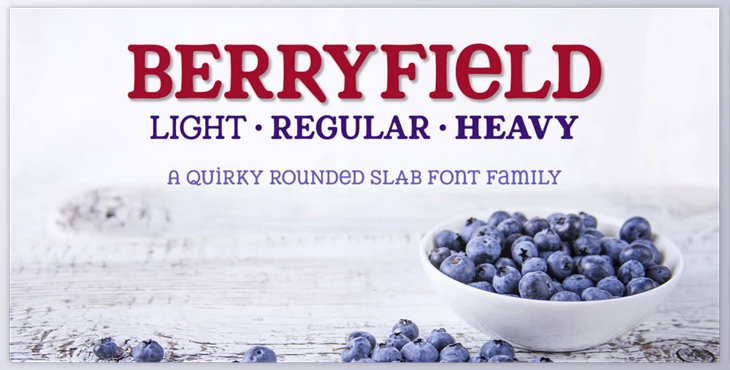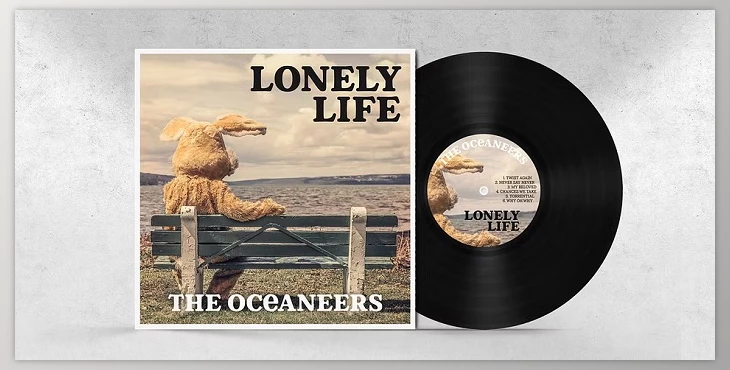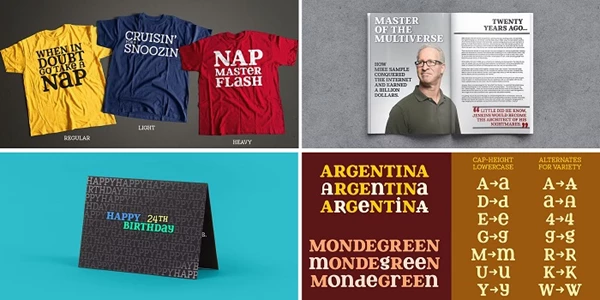
The Berryfield Font Family – 3 Fonts is a collection of three fonts created from geometric shapes, inspired by classic serif fonts like Cooper, Korinna, and Goudy for the uppercase, and unicase fonts like Pupcat and Pharmacy for the lowercase.
The font family includes over 520 characters, with 300+ additional Latin characters for language support, and features superscript ordinals encoded with PUA for easy access across design software.
Designed for versatility and fun, Berryfield is suitable for both print and digital media, offering a playful yet sophisticated aesthetic.